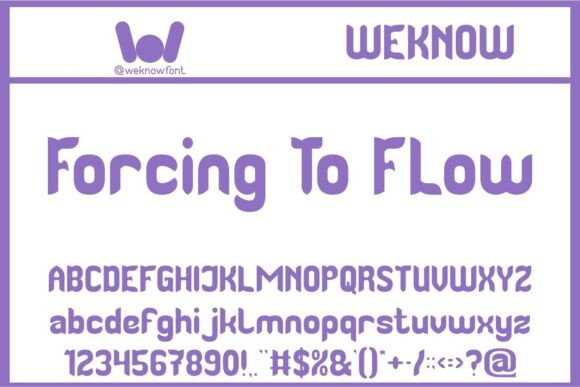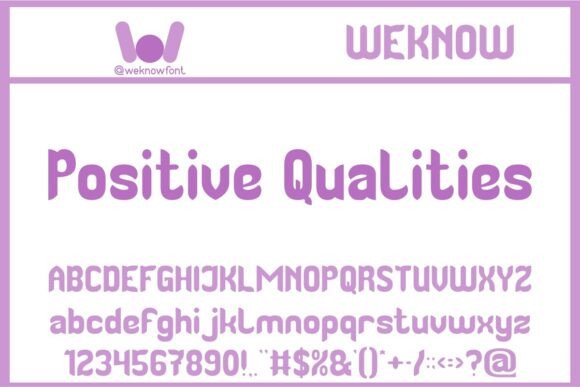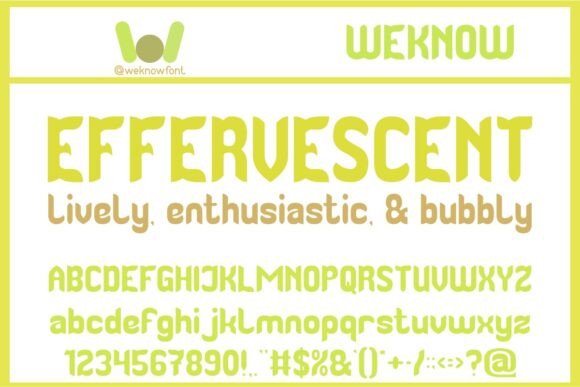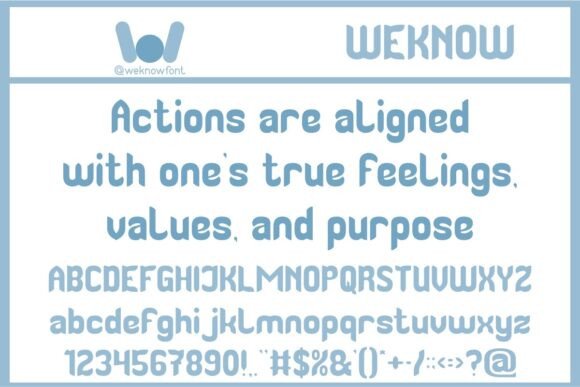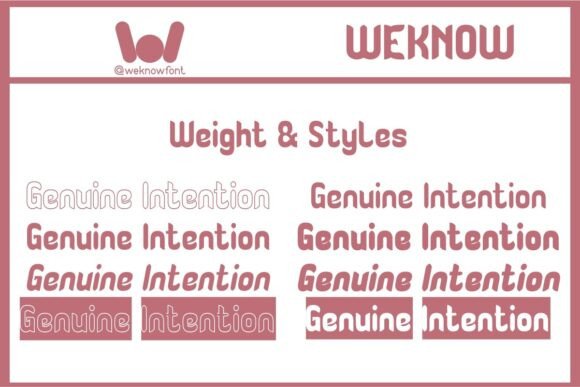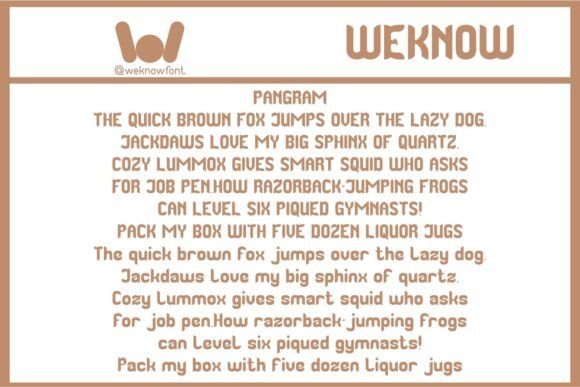
Introducing Genuine Intention: The Eclectic Display Font for Creative Designs
In the world of typography, a font can make or break a design. It’s the perfect blend of form and function, aesthetics and readability. For designers and crafters looking to elevate their creative projects, Genuine Intention is a game-changer. This eclectic display font seamlessly weaves together elegance and versatility, making it the perfect addition to your typography arsenal.
The Perfect Blend of Elegance and Versatility
Genuine Intention is more than just a font – it’s an experience. With its unique blend of elegance and versatility, this display font is designed to add a sharp aesthetic edge to any design project. From logos and headlines to corporate identities and brand marquees, Genuine Intention brings a level of sophistication and refinement that’s hard to match.
Industry-Specific Applications
While Genuine Intention is versatile enough to be used across various industries, it’s particularly well-suited for the apparel industry. Fashion brands looking to make a statement with their typography will find Genuine Intention to be a perfect fit. Additionally, music, movies, games, and magazine titles will also benefit from the font’s distinctive flair, adding a touch of glamour and excitement to any design.
Bringing Life to Creative Projects
Book titles, comics, and cartoons are just a few examples of creative projects that can be taken to the next level with Genuine Intention. The font’s eclectic style injects a dose of personality and whimsy into any design, making it perfect for projects that require a bit of edge. Whether you’re designing a book cover, creating a comic strip, or developing a cartoon series, Genuine Intention is the perfect choice.
Digital Applications
In today’s digital age, typography plays a crucial role in online design. Genuine Intention is optimized for digital use, making it perfect for Instagram captions, YouTube thumbnails, and website headers. The font’s bold and eye-catching style is sure to grab attention, driving engagement and setting your design projects apart from the crowd.
Key Features of Genuine Intention
- Elegant and Versatile: Genuine Intention seamlessly blends elegance and versatility, making it perfect for a wide range of design projects.
- Eclectic Style: The font’s unique eclectic style adds a touch of personality and whimsy to any design.
- Highly Readable: Despite its bold and eye-catching style, Genuine Intention remains highly readable, making it perfect for use in a variety of contexts.
- Multi-Industry Applications: From apparel to music, movies, games, and more, Genuine Intention is versatile enough to be used across various industries.
Tips for Using Genuine Intention
To get the most out of Genuine Intention, here are a few tips to keep in mind:
- Use it as a Headline Font: Genuine Intention is perfect for use as a headline font, adding a touch of elegance and sophistication to any design.
- Experiment with Colors: The font’s bold style makes it perfect for use with bright and bold colors, so don’t be afraid to experiment.
- Pair it with Other Fonts: Genuine Intention pairs well with a variety of other fonts, making it perfect for use in combination with other typography.